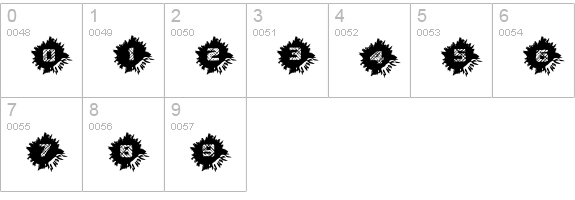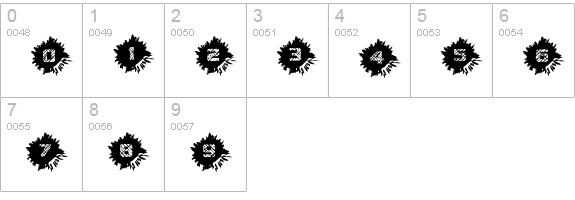
Dead Circuit is a edgy and dynamic font that exudes a sense of energy and movement. With its sharp angles and futuristic style, this font is perfect for projects that require a modern and bold look. Whether you're designing posters, logos, or social media graphics, Dead Circuit will make your text stand out and grab attention. Best of all, this font is available for free download at FontsMarket.com, so you can add it to your collection without breaking the bank. Embrace the power of Dead Circuit and take your designs to the next level.